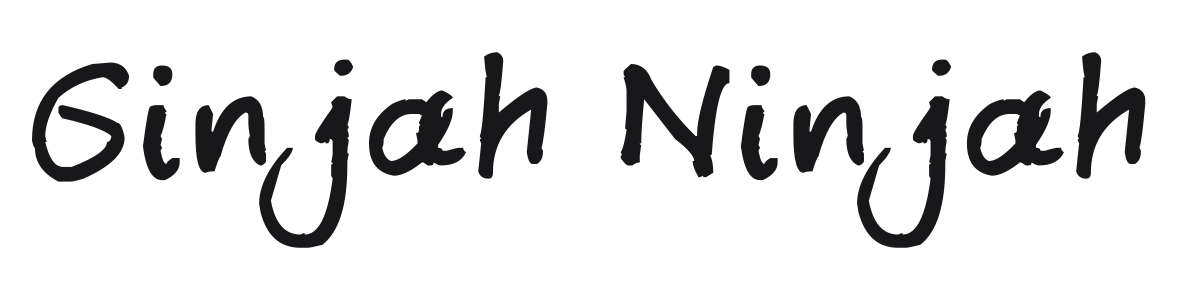
Ginjah Ninjah
Ginjah Ninjah is a casual handwritten script with rough, organic edges that make it look genuinely hand-penned. The near-monoweight strokes and subtle baseline irregularities give it an unforced, spontaneous quality. It works well anywhere you need warmth and a human touch at display sizes.